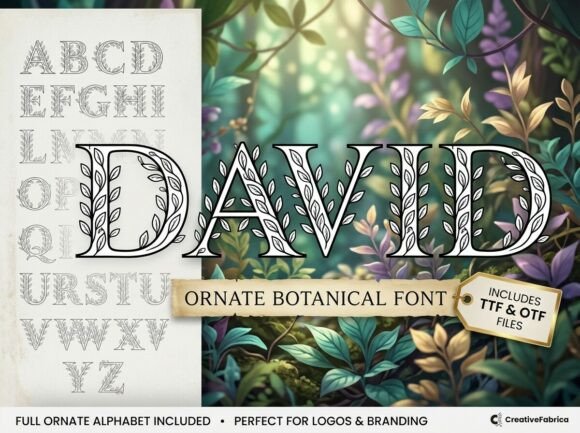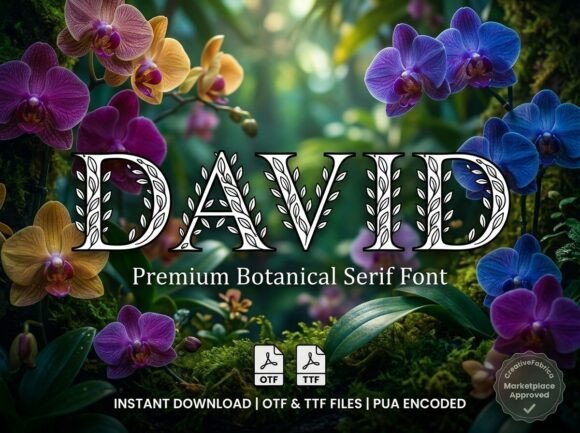
Introducing David Font: A Stunning Decorative Display Font
Are you tired of using the same old fonts for your creative projects? Look no further than David Font, a unique and artistic display font that’s sure to turn heads. This font is designed to be the center of attention, featuring bold and eye-catching elements that will elevate your designs to the next level.
A Font that Breaks Away from the Ordinary
David Font is perfect for creators who want to add a touch of personality to their work. With its strong visual personality and unique artistic elements, this font is sure to make your designs stand out from the crowd. Whether you’re working on a bold headline, an artistic logo, or creative packaging, David Font is the perfect choice.
Versatile and Professional
One of the best things about David Font is its versatility. This font is suitable for a wide range of design projects, from high-impact headlines to decorative initials. And with its professional and polished finish, you can be sure that your designs will look great on any device or platform.
Before you make a purchase, it’s essential to note that David Font is an ALL-CAPS (Uppercase Only) display typeface. This means that it does not include lowercase letters. However, this is by design, as David Font is specifically created for high-impact headlines, logos, and decorative initials where every letter is a work of art.
David Font is an excellent choice for designers and crafters who want to add a touch of elegance and sophistication to their work. With its unique and artistic elements, this font is sure to inspire your creativity and help you create stunning designs.
Use Cases for David Font
So, what can you use David Font for? Here are a few ideas to get you started:
- Headlines and Titles: Use David Font to create bold and eye-catching headlines that grab attention.
- Logos and Branding: Create a unique and memorable logo for your business or brand with David Font.
- Packaging and Labels: Add a touch of elegance and sophistication to your packaging and labels with David Font.
- Signage and Displays: Use David Font to create stunning signage and displays that showcase your message.
Tips for Using David Font
Here are a few tips for getting the most out of David Font:
- Use it sparingly: David Font is a bold and eye-catching font, so use it sparingly to avoid overwhelming your design.
- Experiment with colors: Try out different colors and textures to add depth and interest to your design.
- Pair it with other fonts: Combine David Font with other fonts to create a unique and visually appealing design.
In conclusion, David Font is a stunning decorative display font that’s perfect for designers and crafters who want to add a touch of personality to their work. With its unique artistic elements, strong visual personality, and versatility, this font is sure to elevate your designs to the next level. So why wait? Purchase David Font today and start creating stunning designs that turn heads!